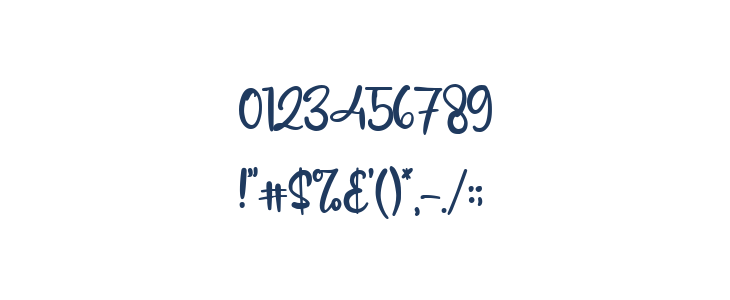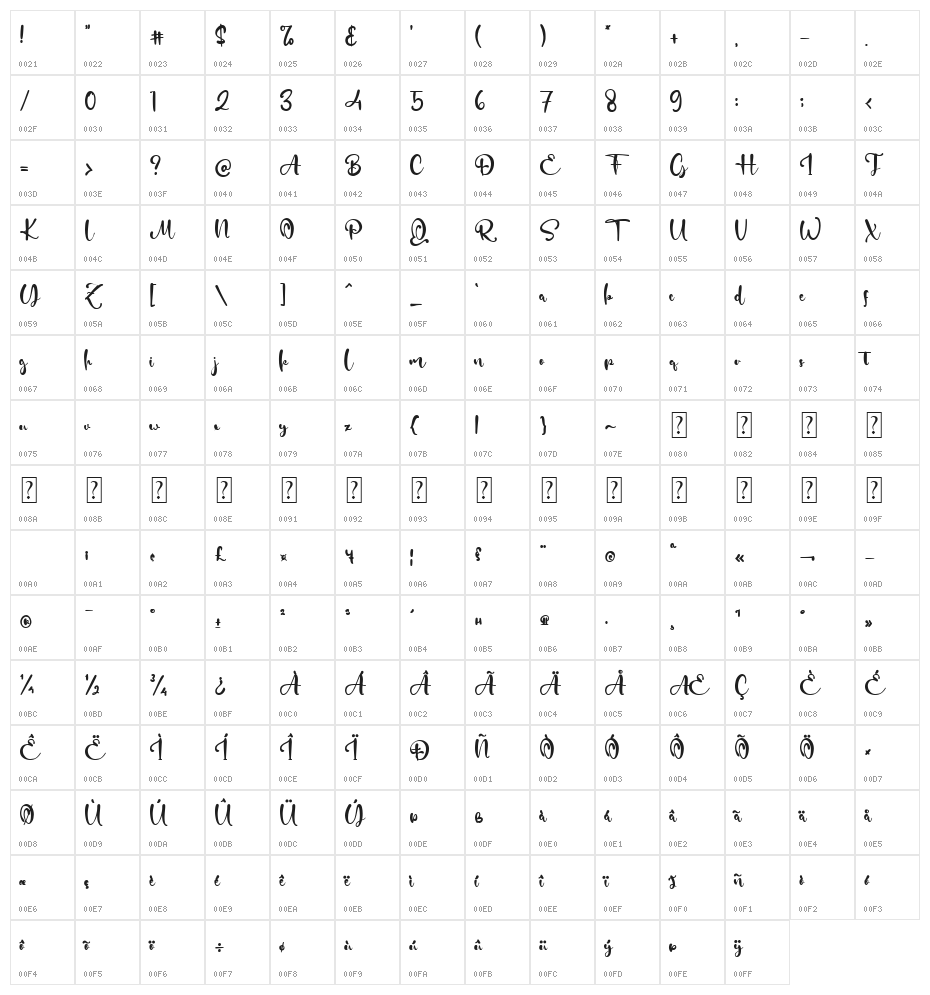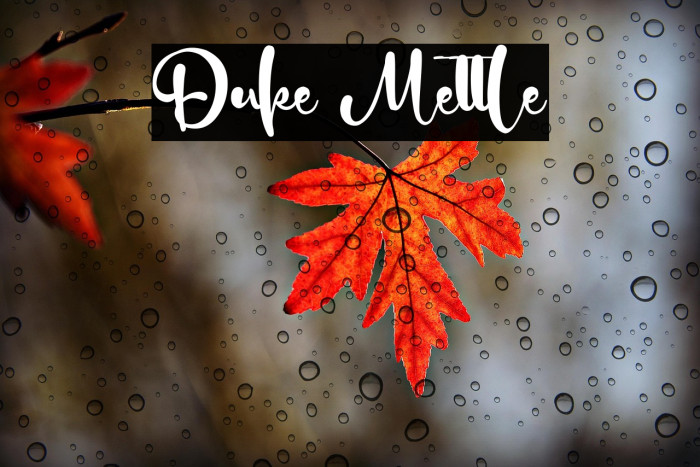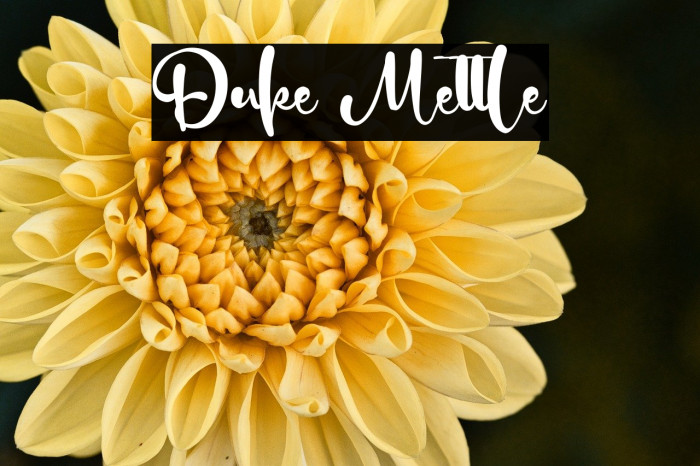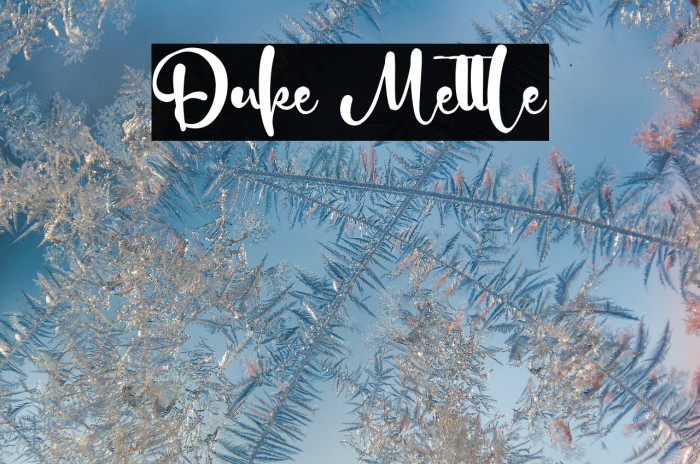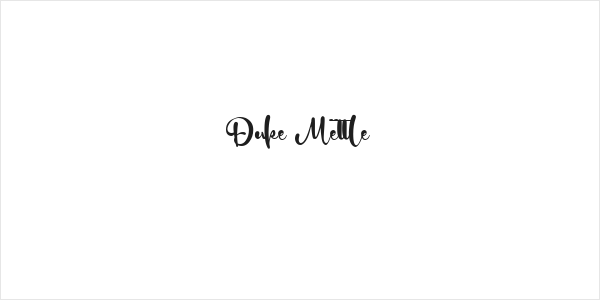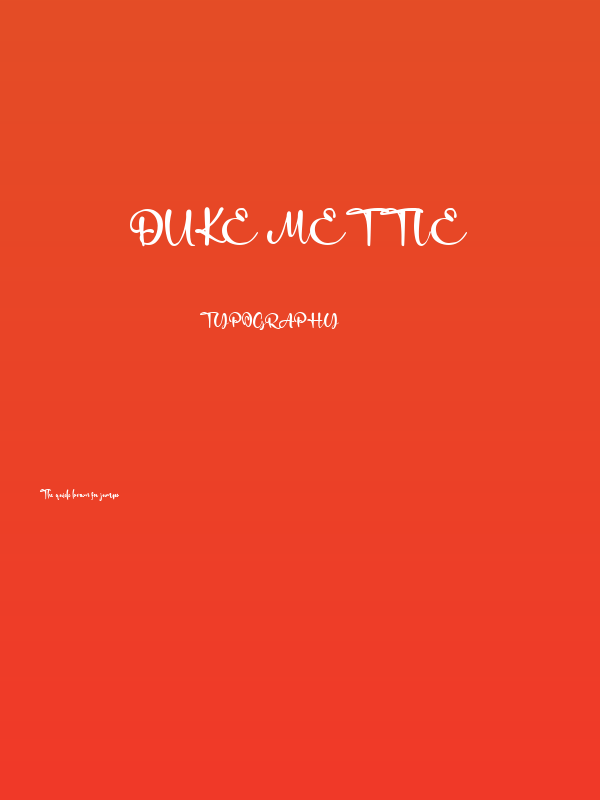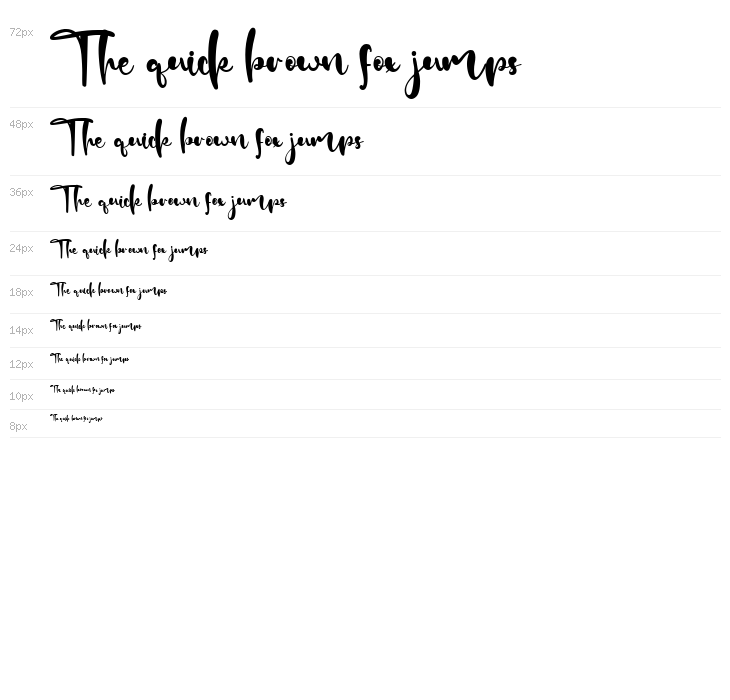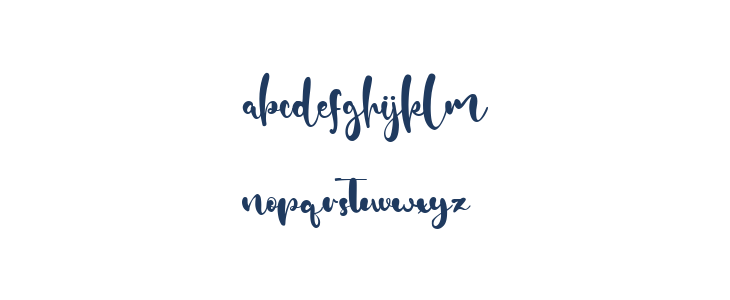
Duke Mettle Font
Duke Mettle Description
This font features a lively and expressive script style, characterized by its flowing, cursive letterforms. The uppercase letters exhibit a playful elegance with exaggerated loops and swashes, while the lowercase letters maintain a more restrained yet still dynamic appearance. The numerals are consistent with the overall style, offering a harmonious blend of curves and lines. Special characters are thoughtfully designed to complement the script's aesthetic, making it versatile for various design needs. The font's overall appearance is both artistic and approachable, suitable for projects that require a personal touch.
| Use Case | Logos, Invitations, Social Media |
| Proposed Projects | Ideal for wedding invitations, greeting cards, branding, and social media graphics. |